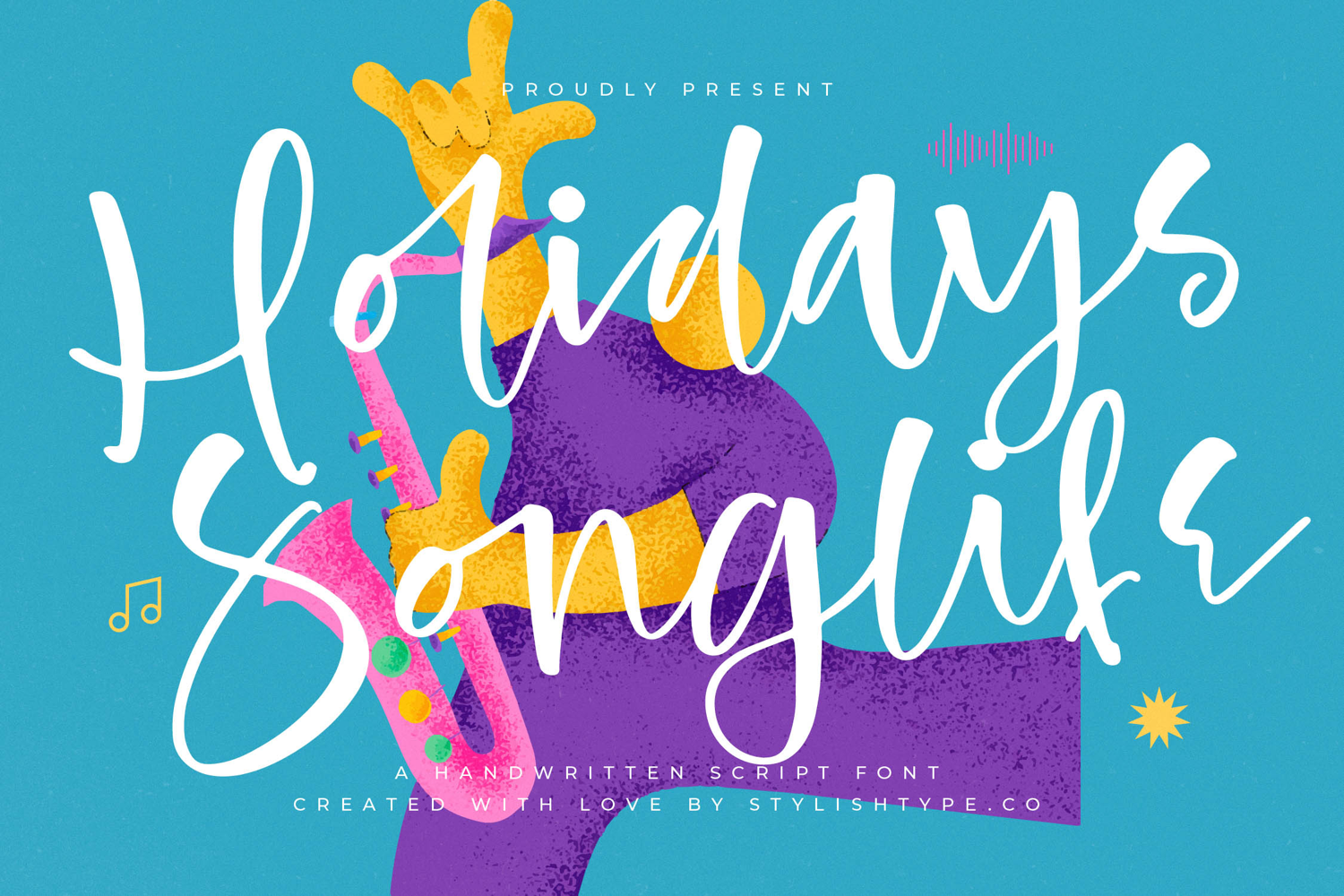
Holidays Songlife - Handwritten Script Font
Holidays Songlife - Handwritten Script Font , from Stylishtype.Co , Suitable for any projects such as: logos, branding projects, homeware designs, product packaging, mugs, quotes, posters, shopping bags, t-shirts, book covers, name card, invitation cards, greeting cards, label, photography, watermark, special events, and all your other luxury and beautiful projects that need a Luxury Script taste.